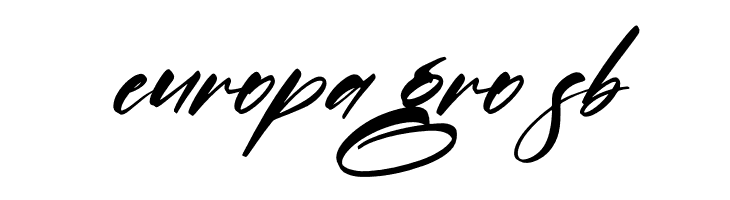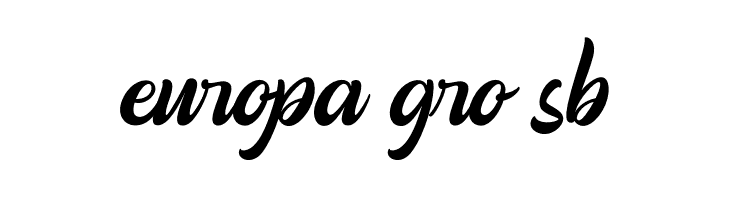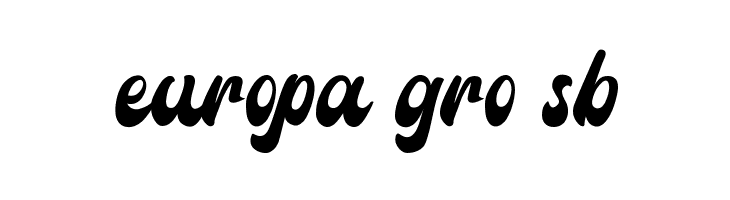
• Amiela
An elegant, flowing script font with ornate, cursive strokes.
• Amigate Endgame
A bold, energetic script font with a handwritten style.
• Amigate Endgame Italic
A bold, italicized handwritten font with dynamic strokes.
• Amigdala
A bold, dynamic script font with a handwritten feel and elegant curves.
• Amigdala
A bold, dynamic script font with a modern and flowing style.
• Amigo Regular
A bold, decorative font with intricate patterns and a three-dimensional effect.
• Amigo Rustique Regular
A bold, decorative font with intricate patterns and a three-dimensional effect.
• Amigos
A bold, cursive script font with elegant, flowing letterforms.
• Amigos Script
A bold, flowing script font with elegant curves and dynamic strokes.
• Amigos Script
A bold, flowing script font with interconnected letters and a lively, dynamic style.